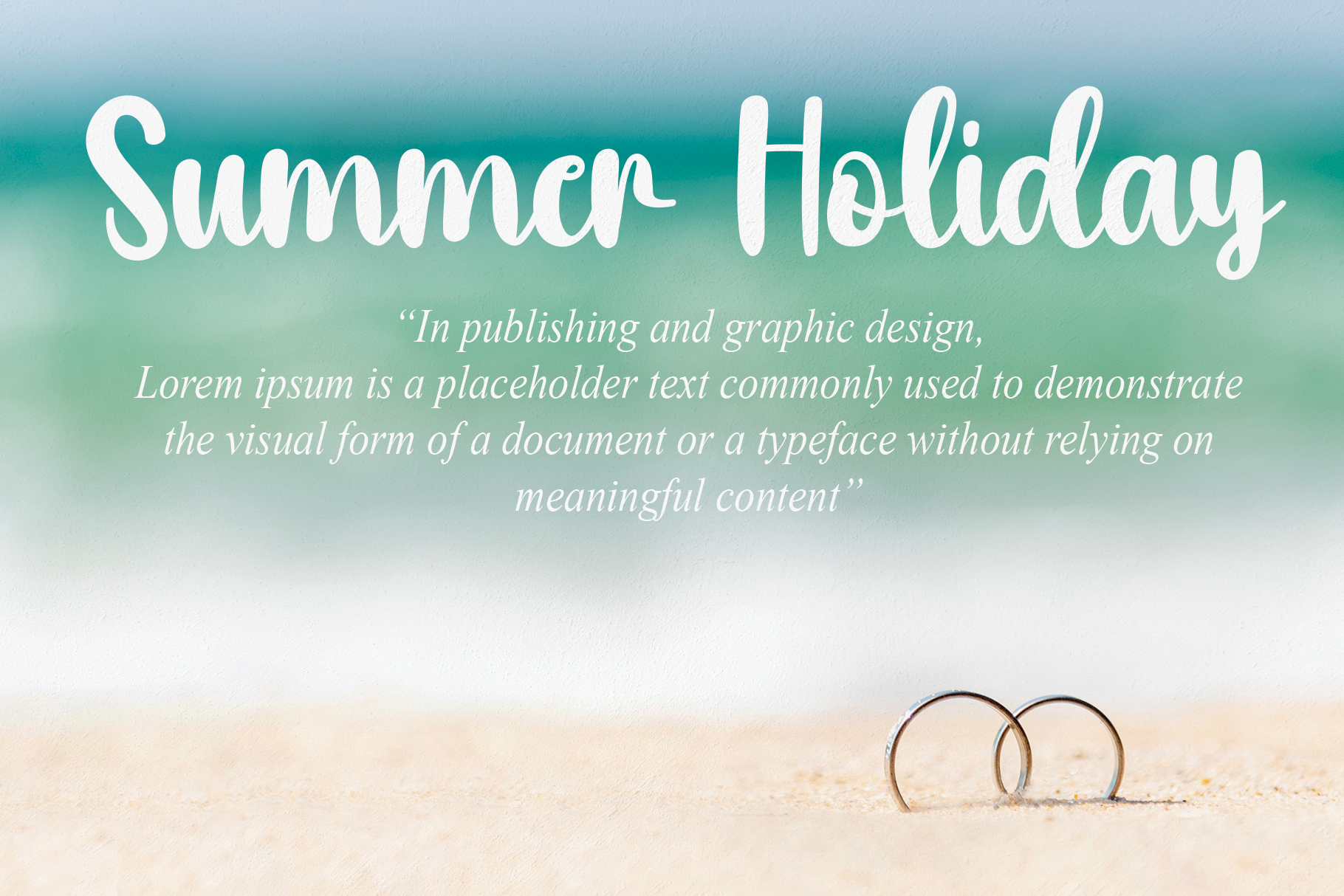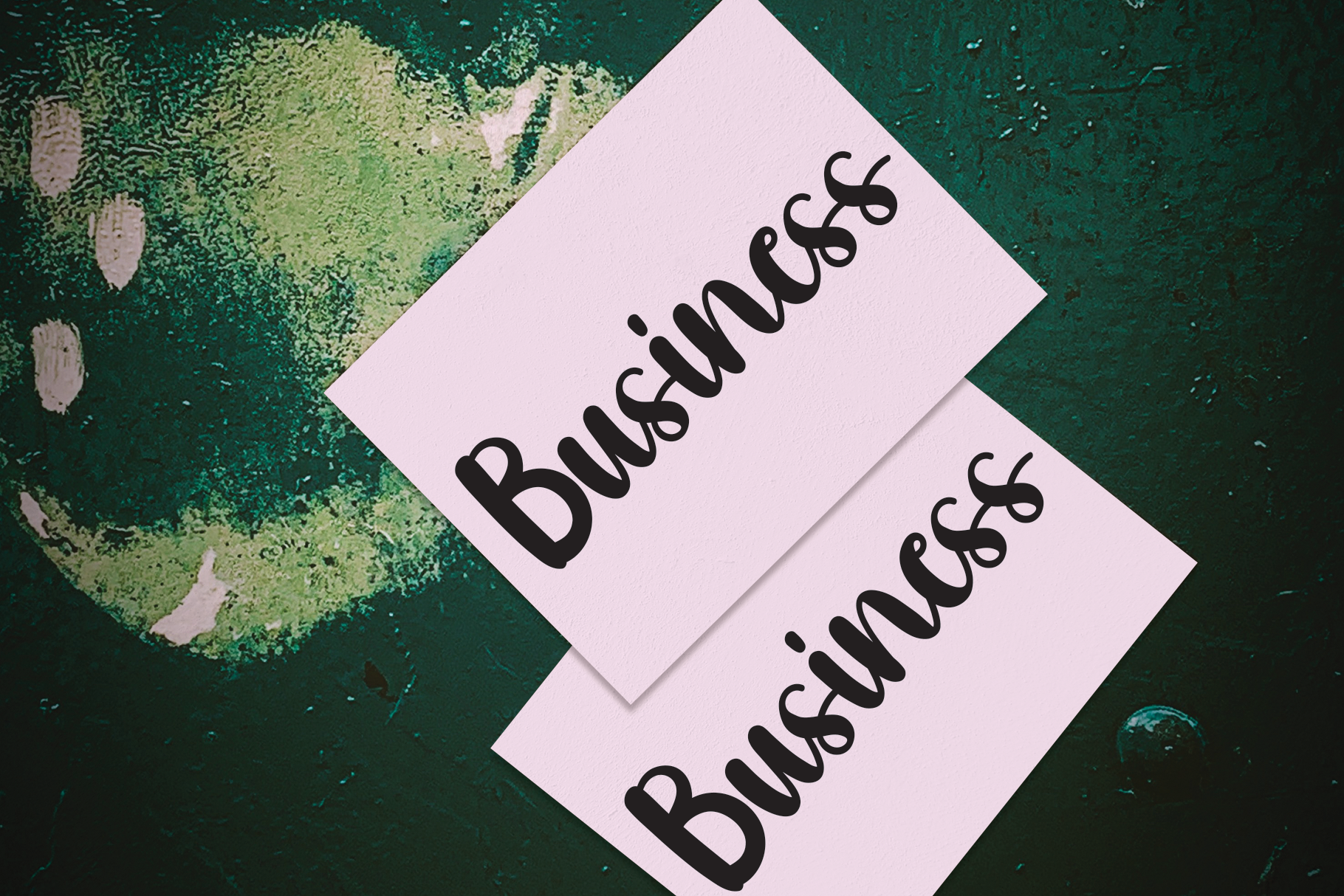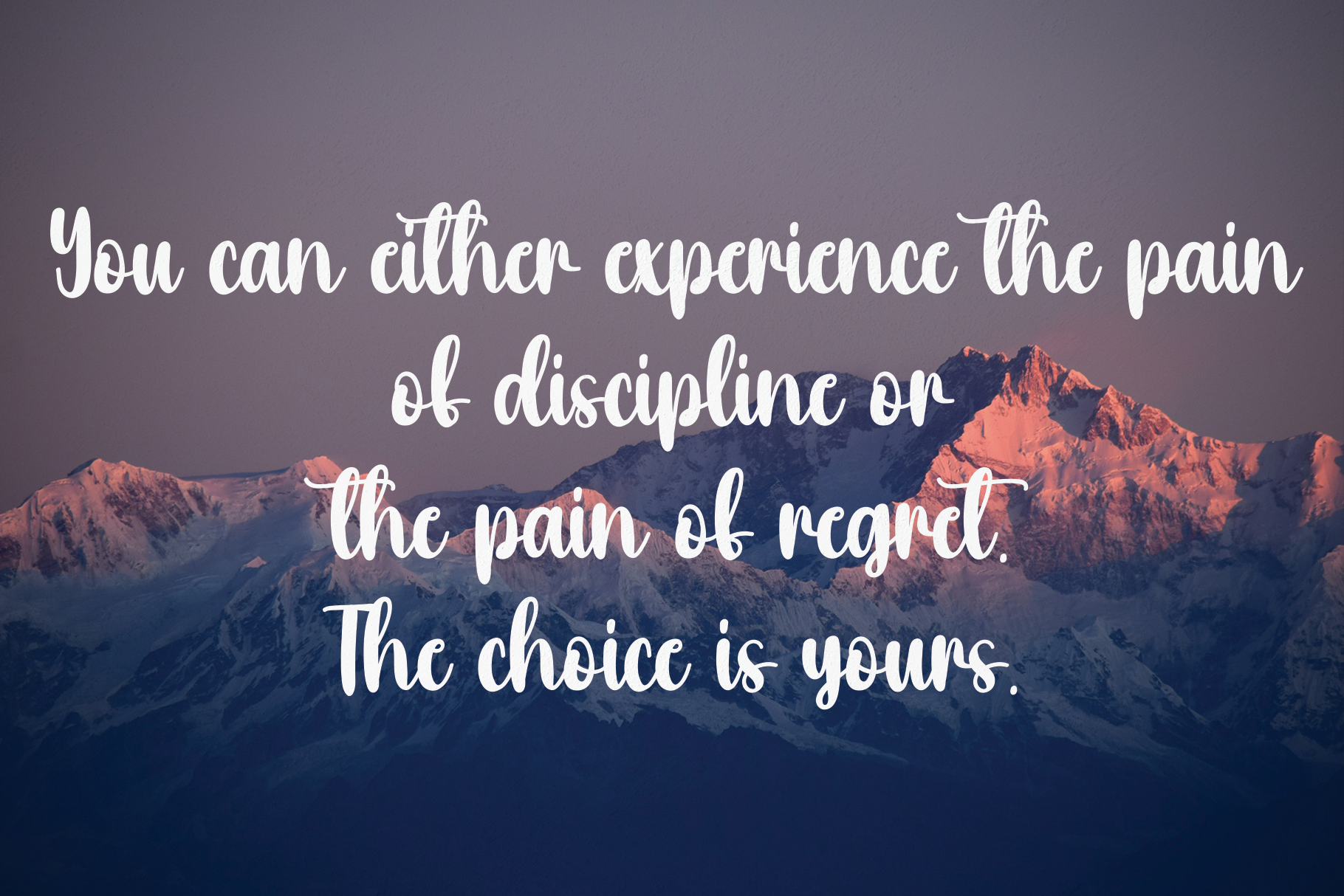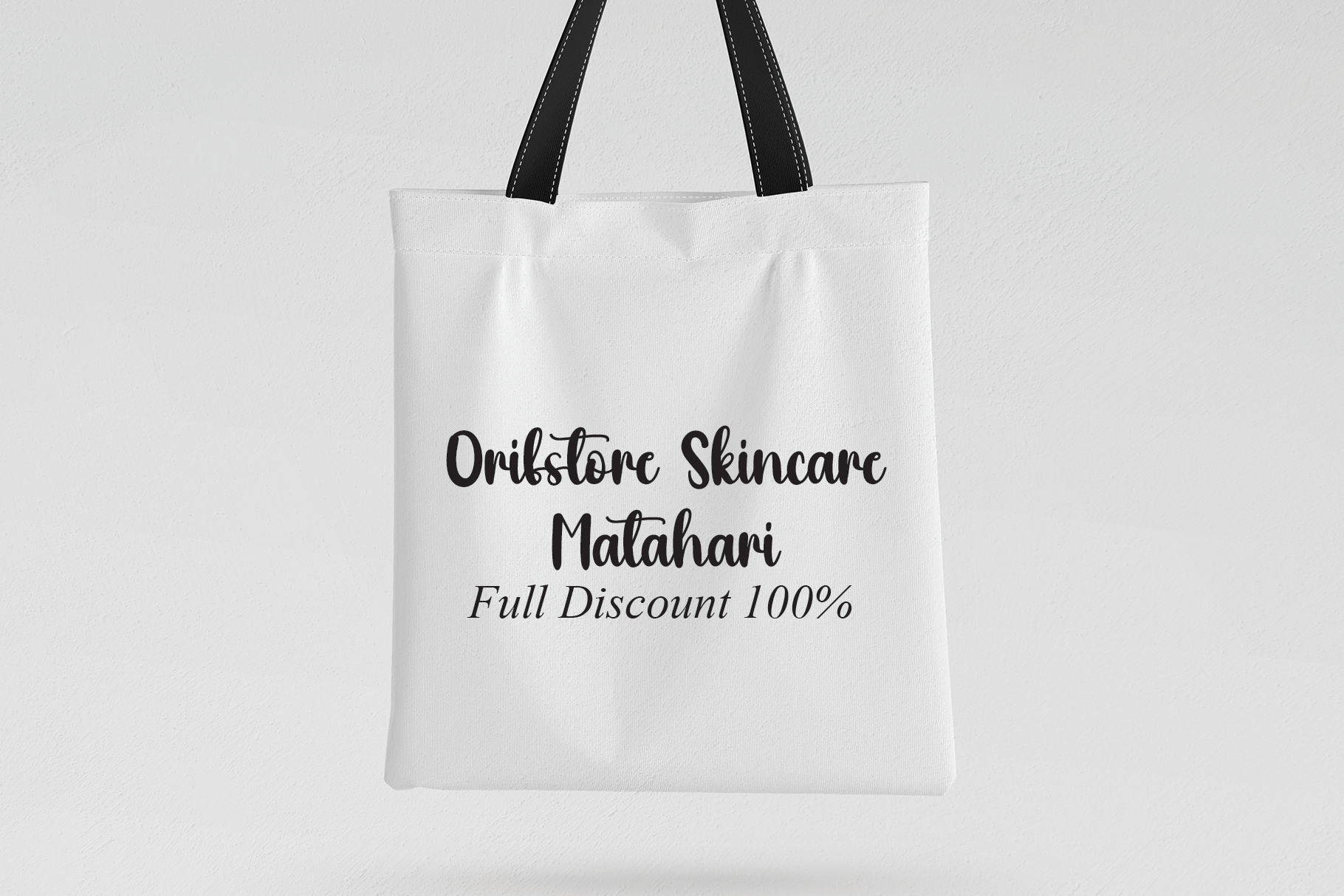
Groovy Script Typeface
This is a trendy and fashionable script font. It is perfect for any branding project such as logos, t-shirt printing, creative products, and more. It will look extraordinary in a variety of contexts.
the latest style letters are perfect for wall displays, wedding invitations, social media post logos, advertisements, product packaging, product designs, labels, photography, watermarks, invitations, stationery, and any project that requires taste handwriting.